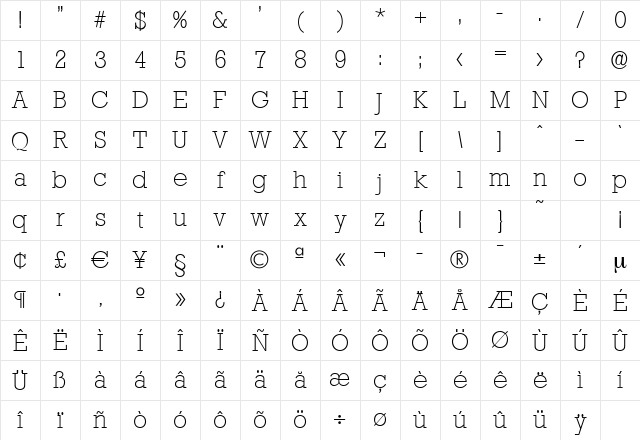
EugeneBecker-ExtraLight Regular Free Font
EugeneBecker-ExtraLight Regular
Design Context for EugeneBecker-ExtraLight
EugeneBecker-ExtraLight is a composed and adaptable typeface that performs quietly and consistently across a wide range of design contexts. Its slender proportions lend an understated elegance to any composition.